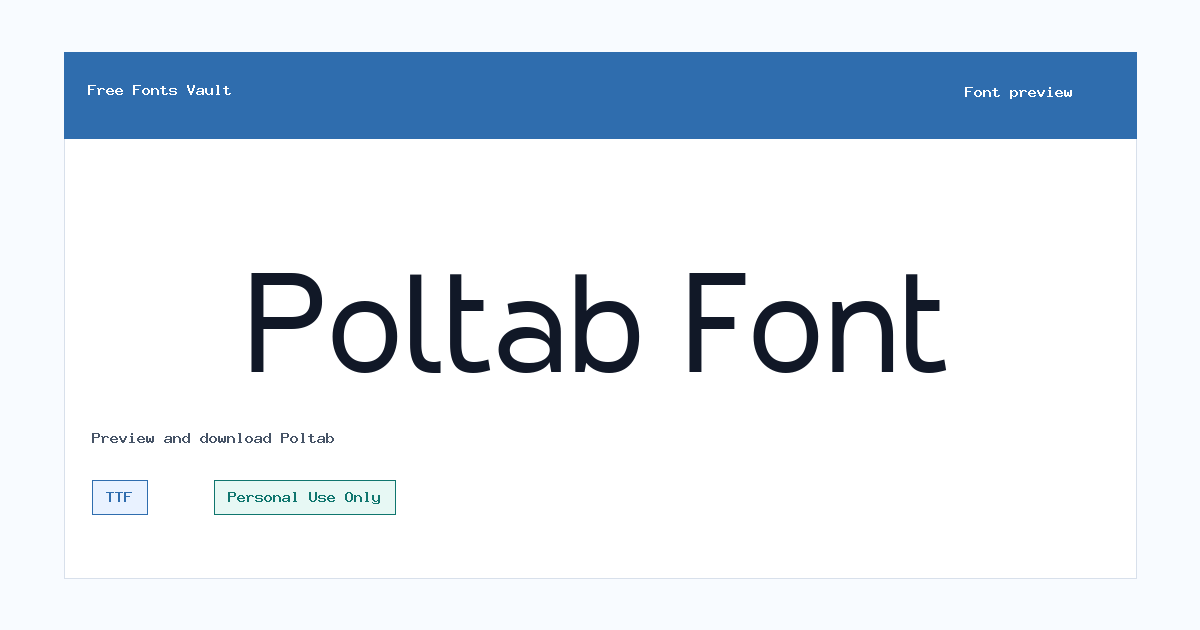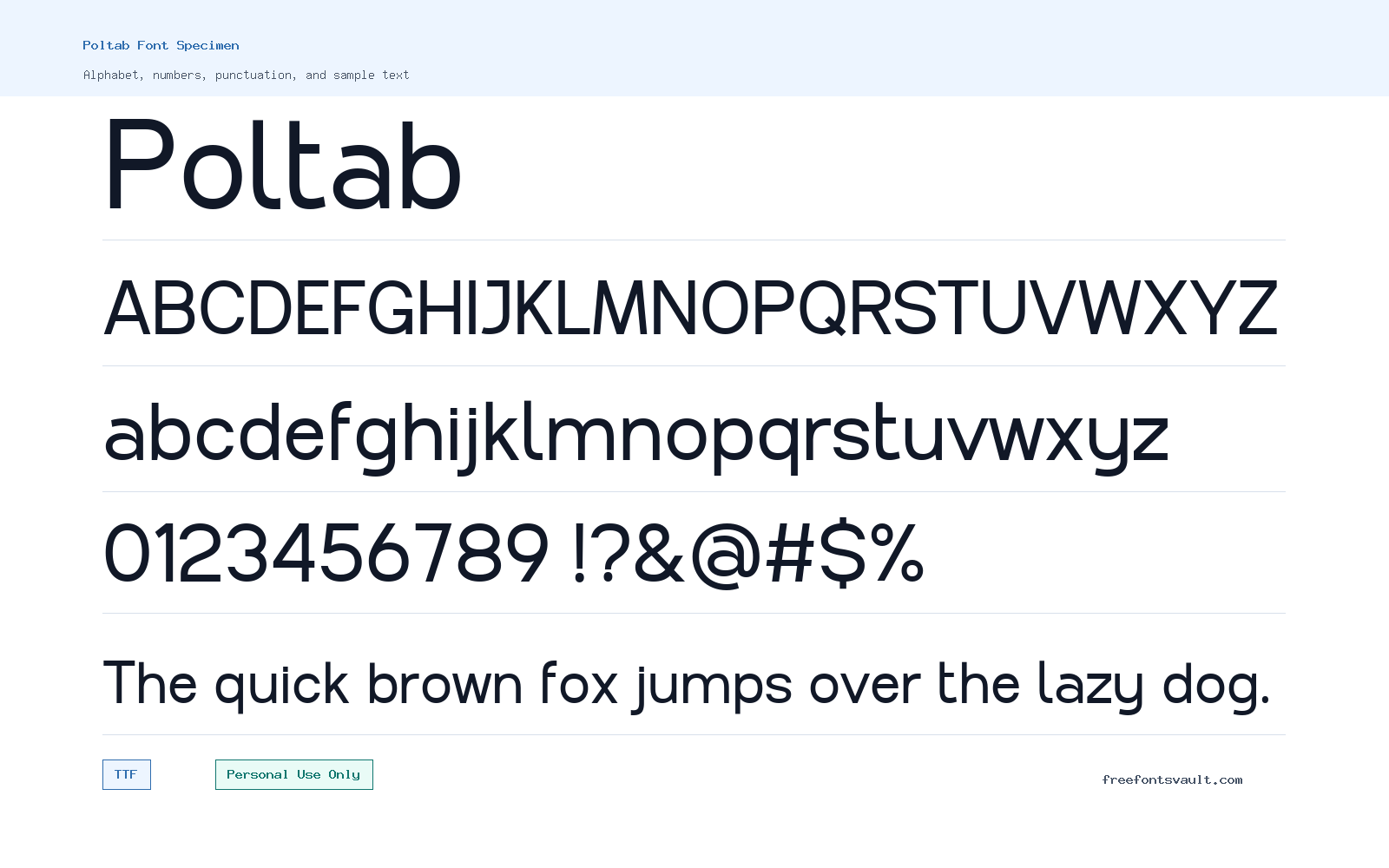
Poltab
Poltab font preview showing the family name
Poltab Font
Poltab font specimen showing alphabet, numbers, and sample text
Poltab font.
Poltab is a sans serif font family for personal projects, with multiple TTF weights that make it useful for testing headlines, short text, and simple layout ideas before you download.
About Poltab Font
Poltab gives you a small but flexible sans serif family rather than a single weight. The files include Light, Regular, Medium, SemiBold, Bold, ExtraBold, and Black styles in TTF format, so you can try a lighter look for clean text blocks or move into heavier weights for stronger titles. Because the font listing does not include a detailed design history or specimen notes, the safest way to judge the font is to use the live preview and test the exact words you plan to use.
For best results, preview Poltab at several sizes before using it in a design. Start with your project title, then test a short subtitle, button label, or name card line. The heavier weights are likely to work best where impact matters, such as posters, thumbnails, social graphics, and display headings. The lighter and medium weights are better choices when you want a calmer tone, but you should still check spacing and readability carefully, especially in long paragraphs or small mobile text. If you are pairing Poltab with another font, keep the second typeface simple so the layout does not feel crowded.
• Sans serif family with several weights for flexible text hierarchy
• Personal posters, social media graphics, thumbnails, and display headings
What is Poltab best used for?
Poltab is best tested for short text such as headings, posters, social graphics, labels, and mockups. Check the preview carefully before using it for long reading text.